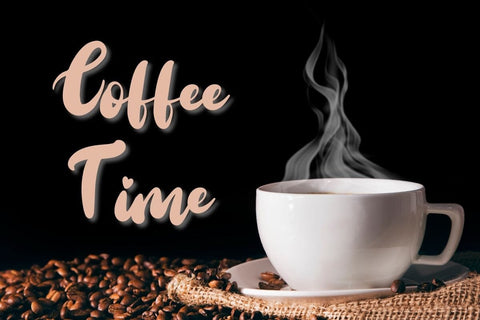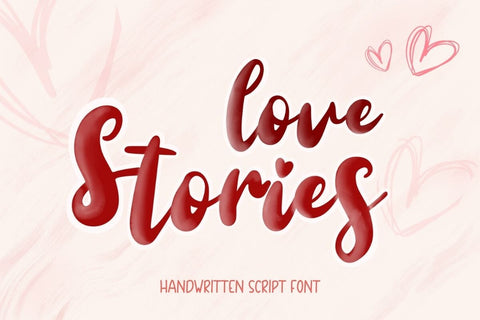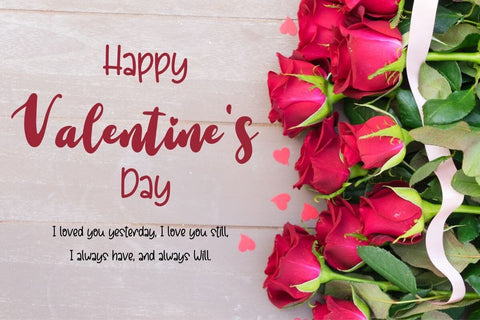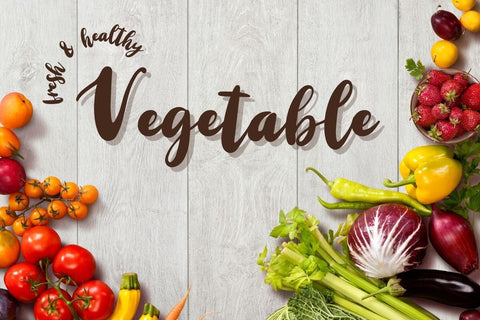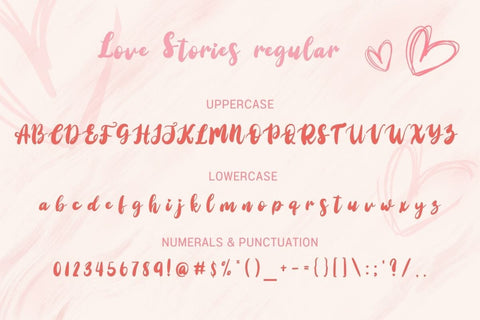
Love Stories – Romantic Script Font
Love Stories is a romantic handwritten script font with a soft, smooth flow and a warm, personal feel. Designed to look natural and charming, this font is perfect for love-themed designs and everyday creative projects.
Love Stories works beautifully for:
- Valentine’s Day designs & love quotes
- Wedding invitations & romantic cards
- Coffee quotes, café branding & menus
- Food labels & lifestyle projects
- Social media posts, stickers & sublimation
With its clean handwritten style and easy readability, Love Stories adds a heartfelt, elegant touch to both digital and print designs.